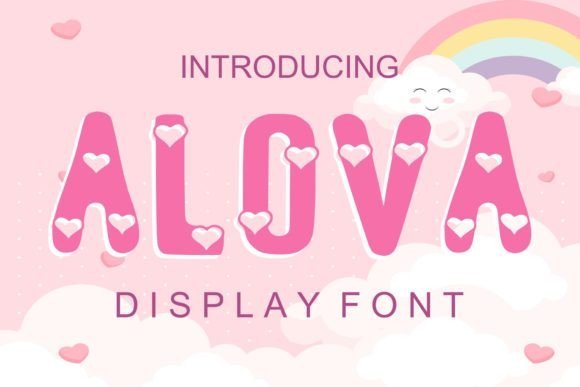
Introduction to Alova Font
Alova is a fun and cute display font.
Warm, romantic, and jolly, this font will turn each of your project ideas into real works of art Have fun with this beautiful font and explore its endless variations.
Key Features of Alova Font